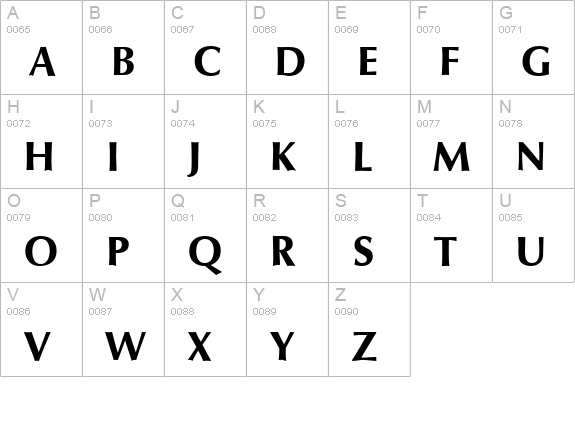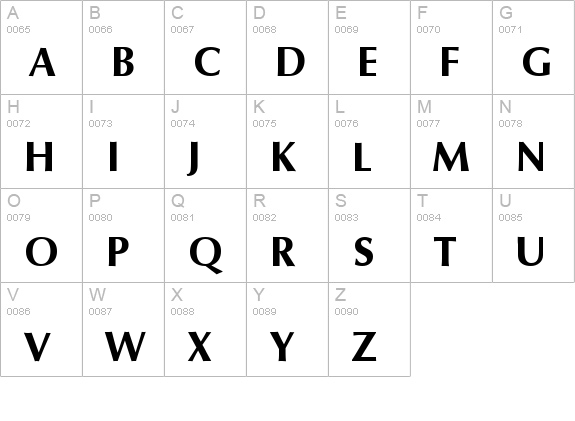
O801-Flare-Bold Font Details
O801-Flare-Bold is a strong, high-contrast variant in the O801 typeface family \xE2\x80\x94 well suited to headlines, attention-grabbing titles, and strong calls-to-action.
O801-Flare-Bold is a stylish and eye-catching font that perfectly balances a bold and modern look with a touch of elegance. Its striking flare details add a unique and dynamic element to any design project, making it stand out from the rest. This versatile font is ideal for headlines, posters, logos, and any other creative work that requires a strong visual impact. The best part about O801-Flare-Bold is that it is completely free to download at FontsMarket.com. This means that you can easily access this high-quality font and use it in your projects without any cost. Don't miss out on the opportunity to elevate your designs with O801-Flare-Bold today!